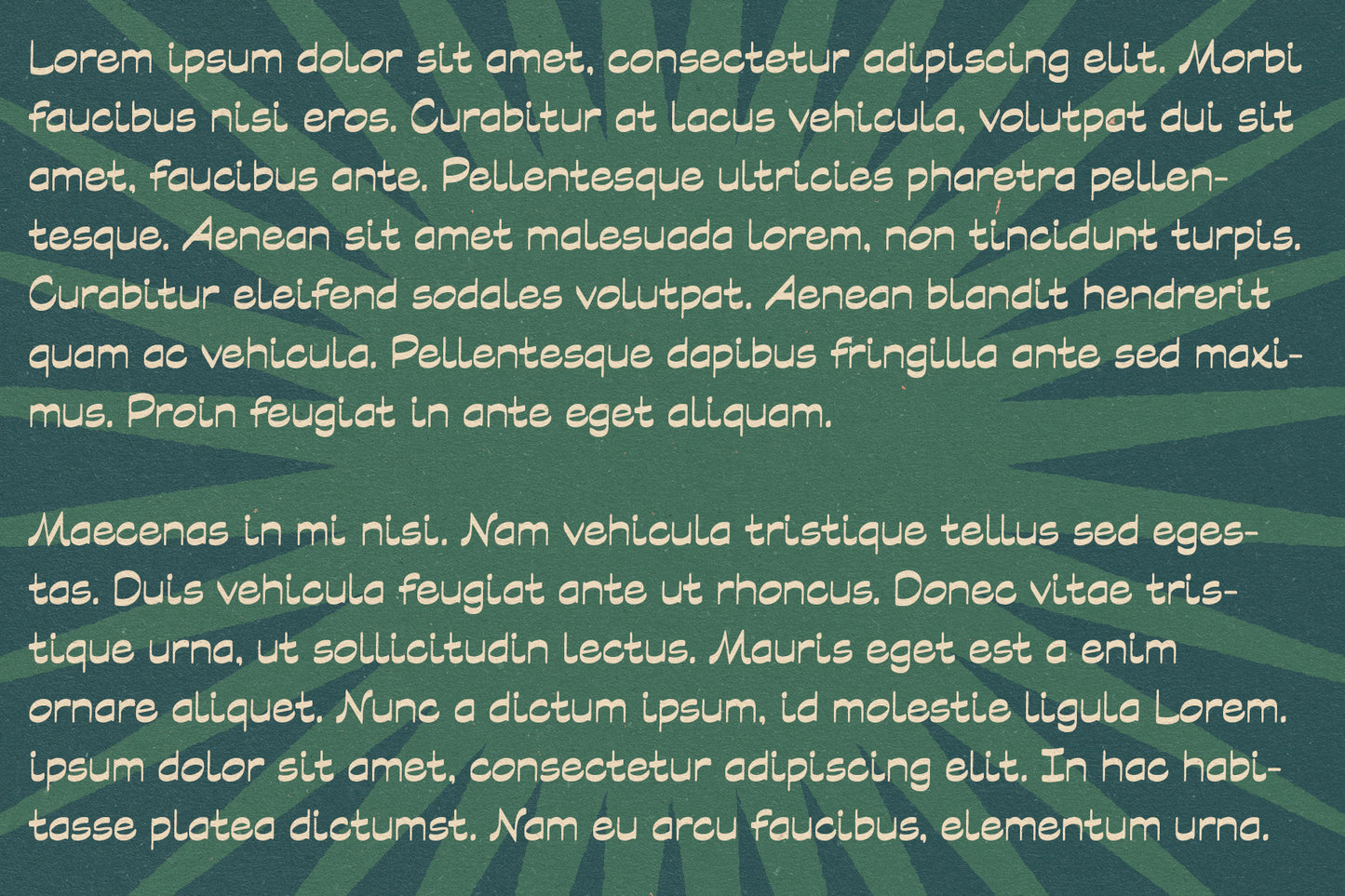
Delgado Typeface
Delgado is a medium weight, medium contrast playful typeface inspired by the imperfect brushstrokes of hand-painting.
Best used in projects that need uppercase as well as lowercase letters, Delgado is a readable but unique font that gives any project a handmade feel.